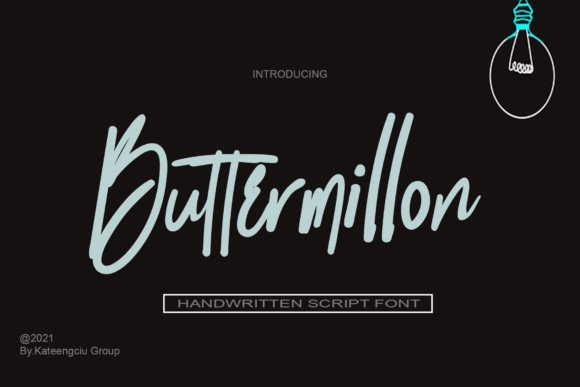
Introducing Buttermillon Font, the perfect harmony of simplicity, quirkiness, and handwritten elegance. Dive into the world of sophisticated typographic artistry with this enchanting script font, designed to elevate your creative expressions to remarkable heights. Allow your words to dance gracefully across digital and physical canvases, capturing hearts and imaginations wherever they appear.
With Buttermillon Font, you're not just downloading a font; you're inviting an artistic revolution into your design repertoire. Its captivating curves, delicate strokes, and graceful swashes will transform mundane text into captivating narratives, adding a touch of whimsy and charm to every character. Whether you're crafting logos, branding materials, wedding invitations, elegant stationery, captivating social media posts, or any other design project, Buttermillon Font will turn your vision into a masterpiece.
Buttermillon Font is more than just a font; it's an experience. Its versatility knows no bounds, adapting seamlessly to a wide array of design aesthetics. From the classic charm of wedding invitations to the modern sophistication of branding materials, Buttermillon Font effortlessly elevates your designs, adding a touch of timeless elegance and captivating charm.
Embrace the beauty of handwritten artistry with Buttermillon Font. Its effortless flow and delicate strokes will infuse your designs with a touch of individuality and authenticity. Let your creations exude the warmth and charm of handwritten notes, evoking a sense of nostalgia and personal connection with your audience.
Buttermillon Font is the ultimate choice for designers seeking to create designs that speak to the heart, leaving a lasting impression on their audience. Its versatility, elegance, and timeless charm make it an indispensable asset in the arsenal of any creative professional. Don't miss this opportunity to unlock the endless possibilities of Buttermillon Font and transform your designs into works of art.